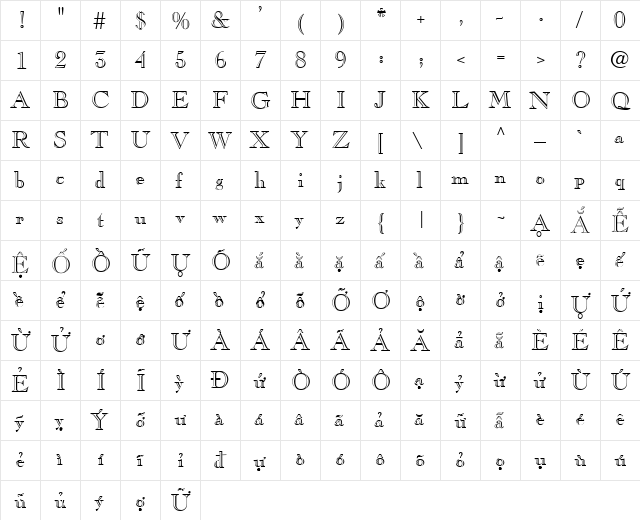
VI Cam Huong Normal Font Preview
VI Cam Huong Normal
Design Context for VI Cam Huong Typeface
VI Cam Huong is a composed and adaptable typeface that performs quietly and consistently across a wide range of design contexts.